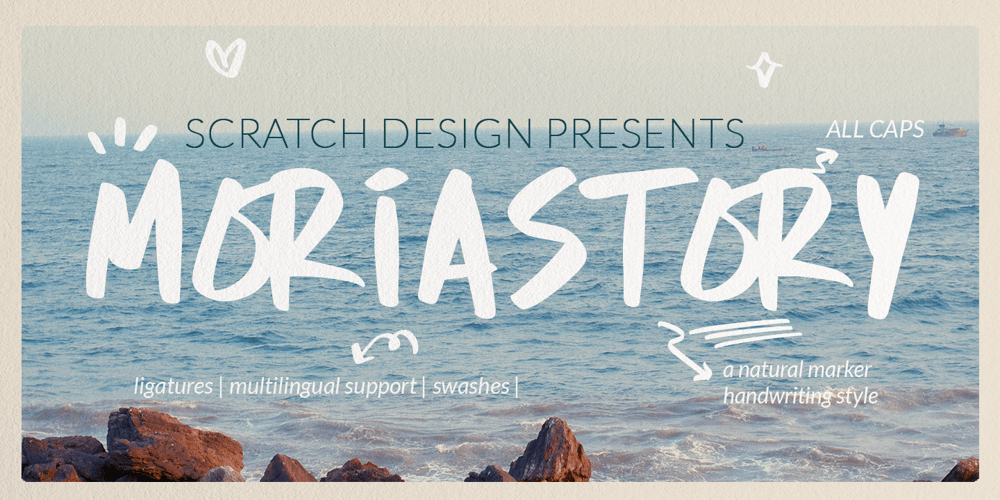
Moriastory Font Family was designed by Gitayogi Irhandi and published by Scratch Design. Moriastory contains 1 styles and family package options. Moriastory is a natural marker handwriting style font featuring two distinct uppercase letter variations and unique ligatures. It authentically mimics the look of swiftly written, realistic handwriting. Perfect for adding a personal touch, Moriastory brings a genuine handwritten feel to any project.Includes: ALL CAPS! Numbers and punctuation Ligatures Swashes Multilingual support We hope you enjoy our font!